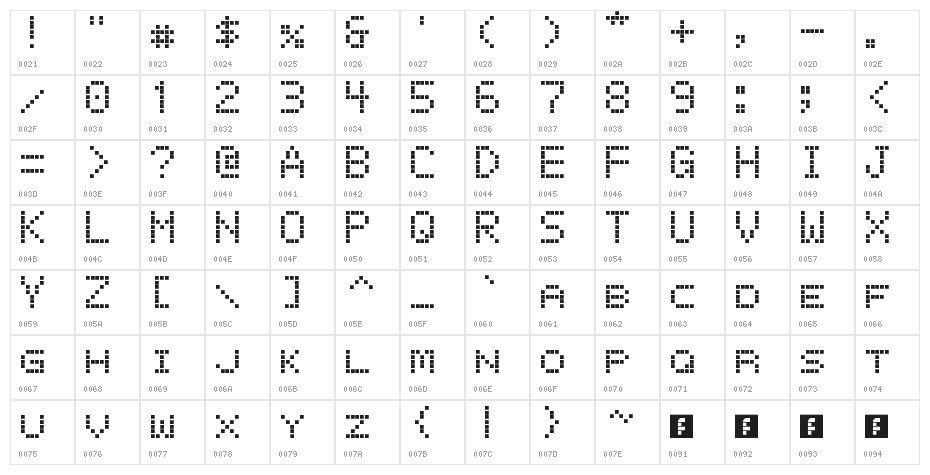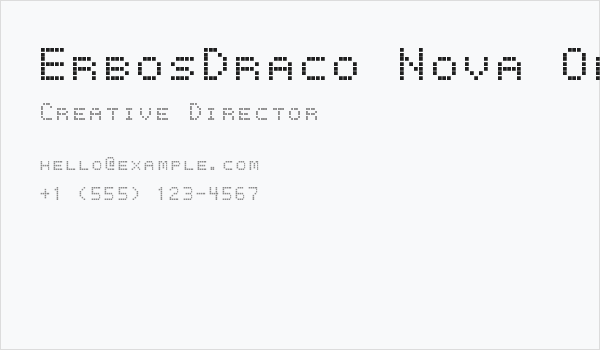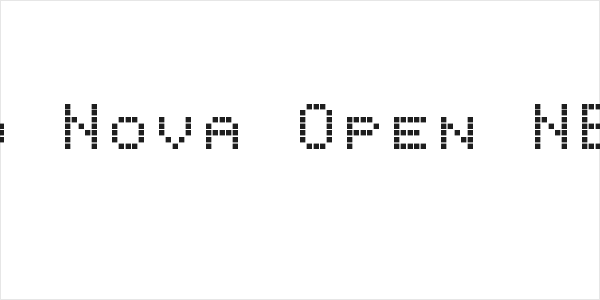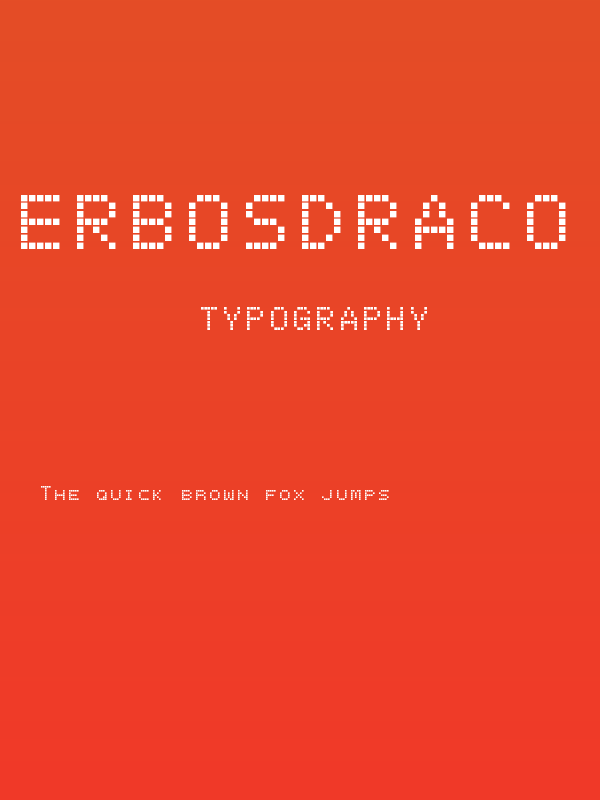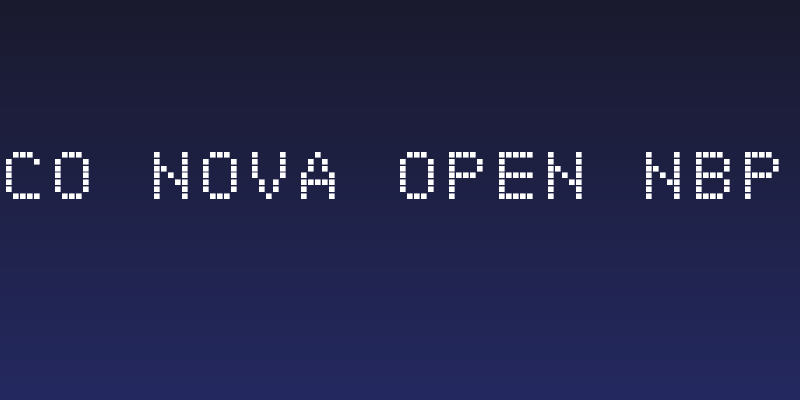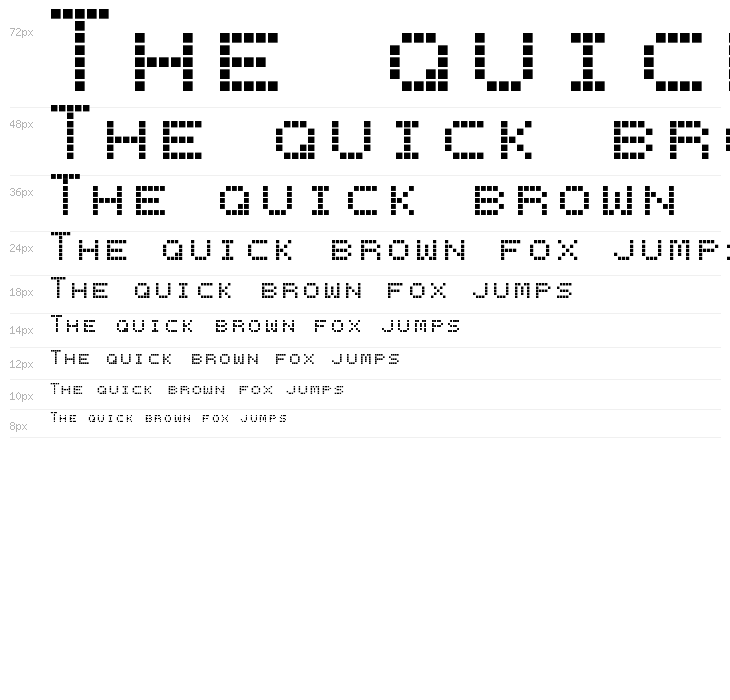
ErbosDraco Nova Open NBP Regular Font
ErbosDraco Nova Open NBP Regular Description
This font features a distinctive pixelated design, reminiscent of early digital displays and retro video games. Each character is composed of a grid of small squares, creating a blocky and geometric appearance. The uniformity in the pixel size across all characters gives it a cohesive and structured look. Despite its rigid form, the font maintains readability and clarity, making it suitable for digital-themed projects. The uppercase and lowercase letters share the same pixelated style, with numbers and special characters following suit, ensuring consistency throughout the typeface.
| Overall Style | Retro, Digital |
| Use Case | Logos, Headlines, Digital Art |
| Proposed Projects | Ideal for retro video game designs, digital art projects, tech-themed posters, and any creative work requiring a nostalgic digital feel. |